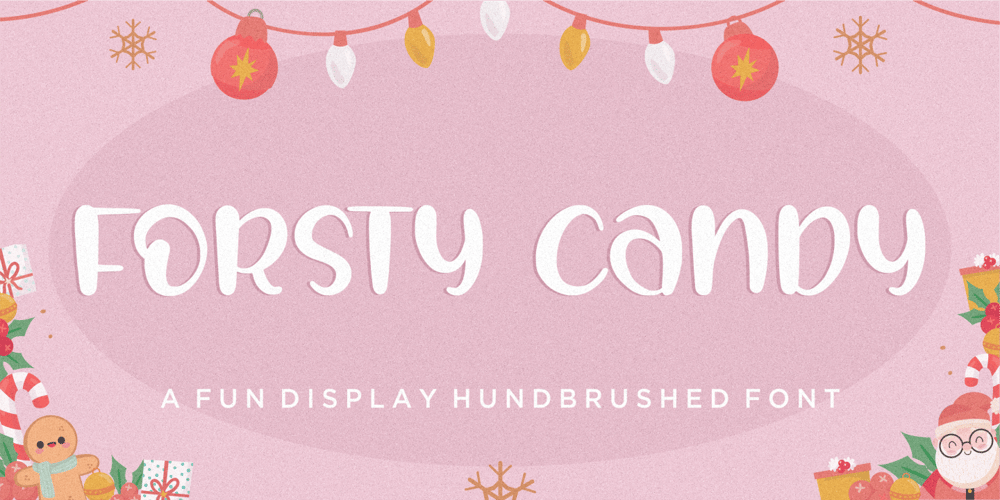
Forsty Candy Font Family was designed by Restu Angga and published by Balpirick. Forsty Candy contains 1 styles and family package options. Forsty Candy is a Fun Display Hand-brushed Font.Forsty Candy is perfect for product packaging, branding project, megazine, social media, wedding, or just used to express words above the background.Forsty Candy support multilingual.Enjoy the font, feel free to comment or feedback, send me PM or email.Thank you!